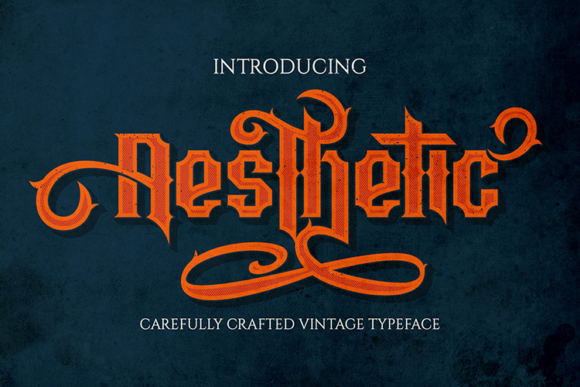
The Aesthetic Font: A Vintage-Meets-Modern Masterpiece
I’ll never forget the design project that led me to discover The Aesthetic font. I was working on a branding project for a crafty client, and I needed a font that would capture the essence of her handmade products. I scoured the internet, tried out dozens of fonts, but nothing seemed quite right. That was until I stumbled upon The Aesthetic – a beautiful, handmade display typeface that combines vintage style with modern and classic typography.
So, what do I love about The Aesthetic font? Here are a few things that caught my attention:
- ✨ Unique character: The Aesthetic has a distinct, handmade feel that’s perfect for crafty brands or creative projects.
- ✅ Vintage vibes: The font’s classic, vintage style adds a touch of sophistication and elegance to any design.
- 💫 Highly legible: Despite its ornate style, The Aesthetic is surprisingly easy to read, even in smaller sizes.
Of course, no font is perfect, and The Aesthetic has a few quirks:
- 🤔 Limited use cases: While The Aesthetic is stunning as a display font, it may not be the best choice for body text or smaller sizes.
- ⚠️ Some letters may require manual kerning: Depending on the word or phrase, you may need to adjust the kerning to get the perfect look.
The Story Behind The Aesthetic Font
The Aesthetic font was created by a talented type designer who drew inspiration from vintage typography and modern design trends. The font’s unique character and elegant style make it perfect for creative projects that require a touch of sophistication.